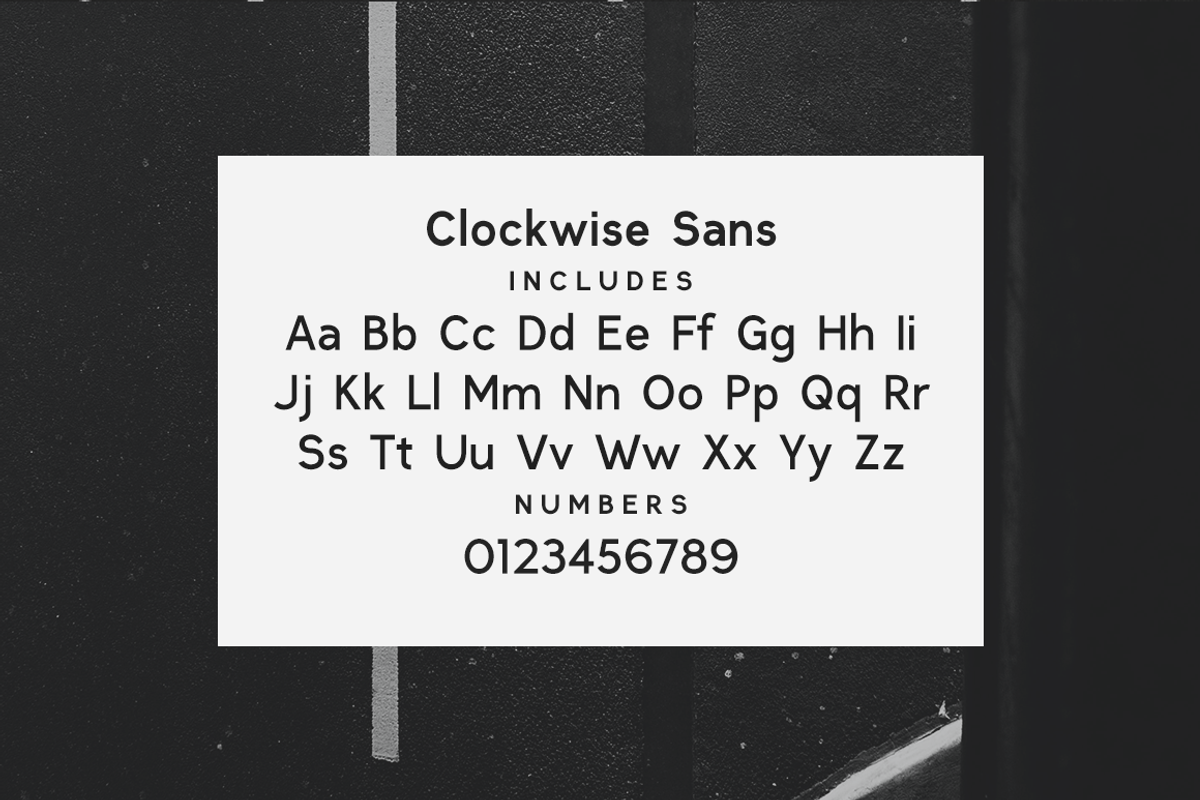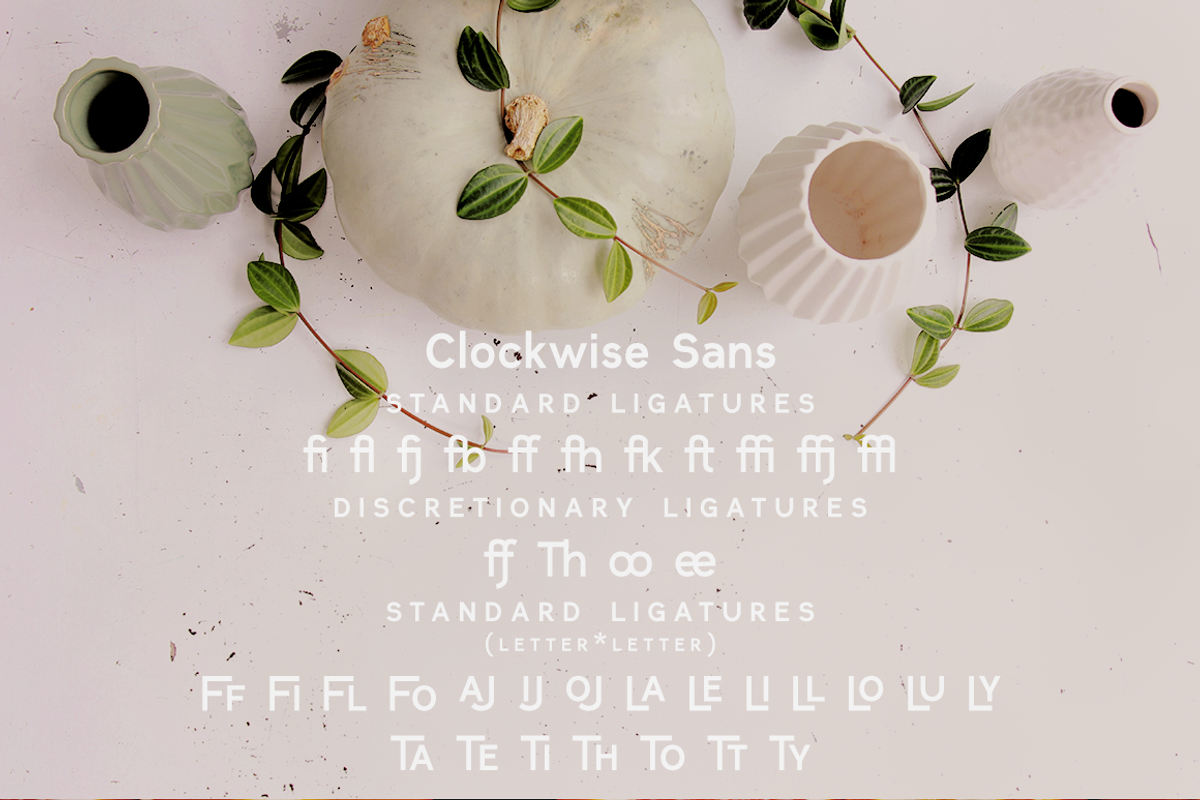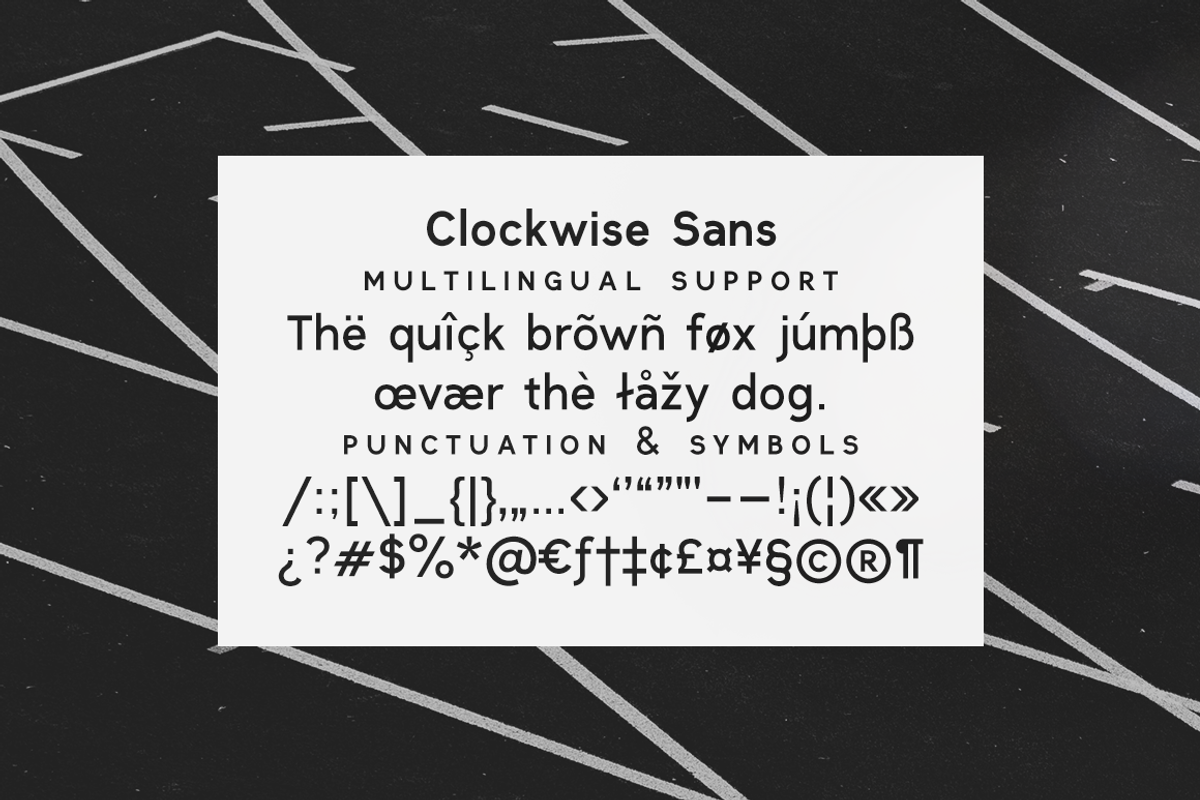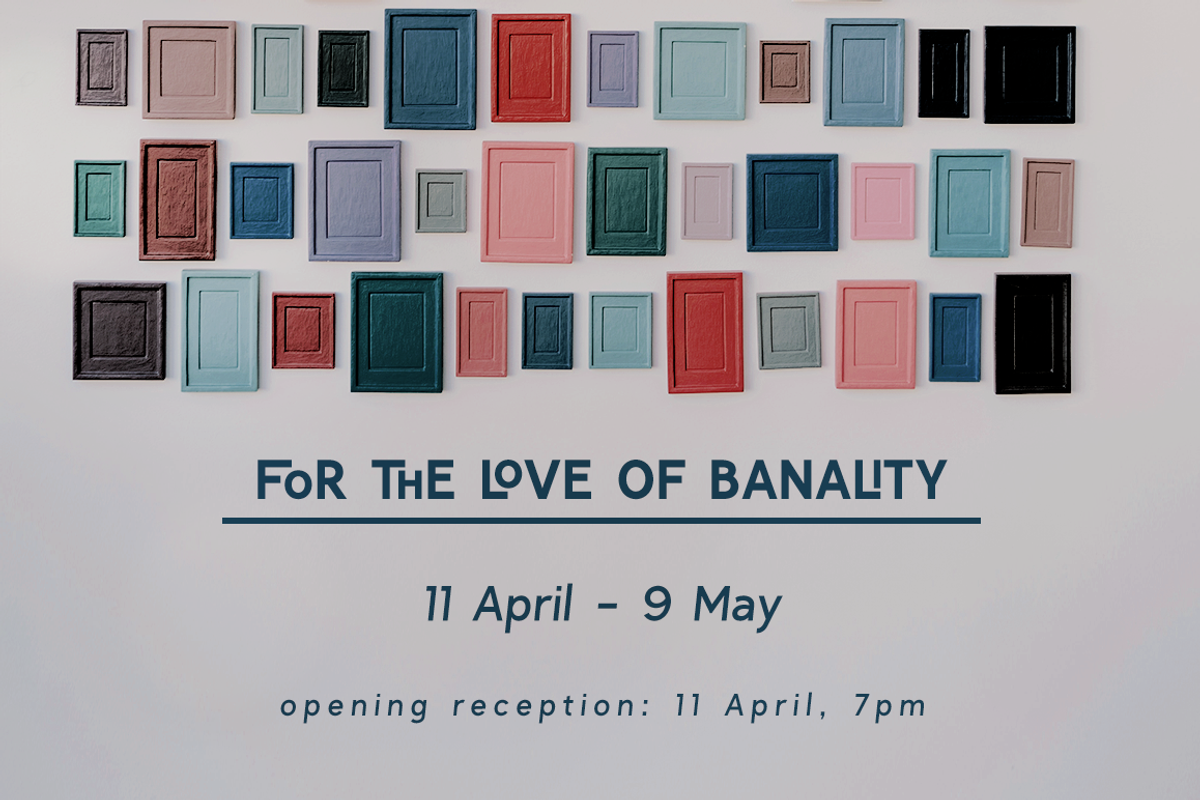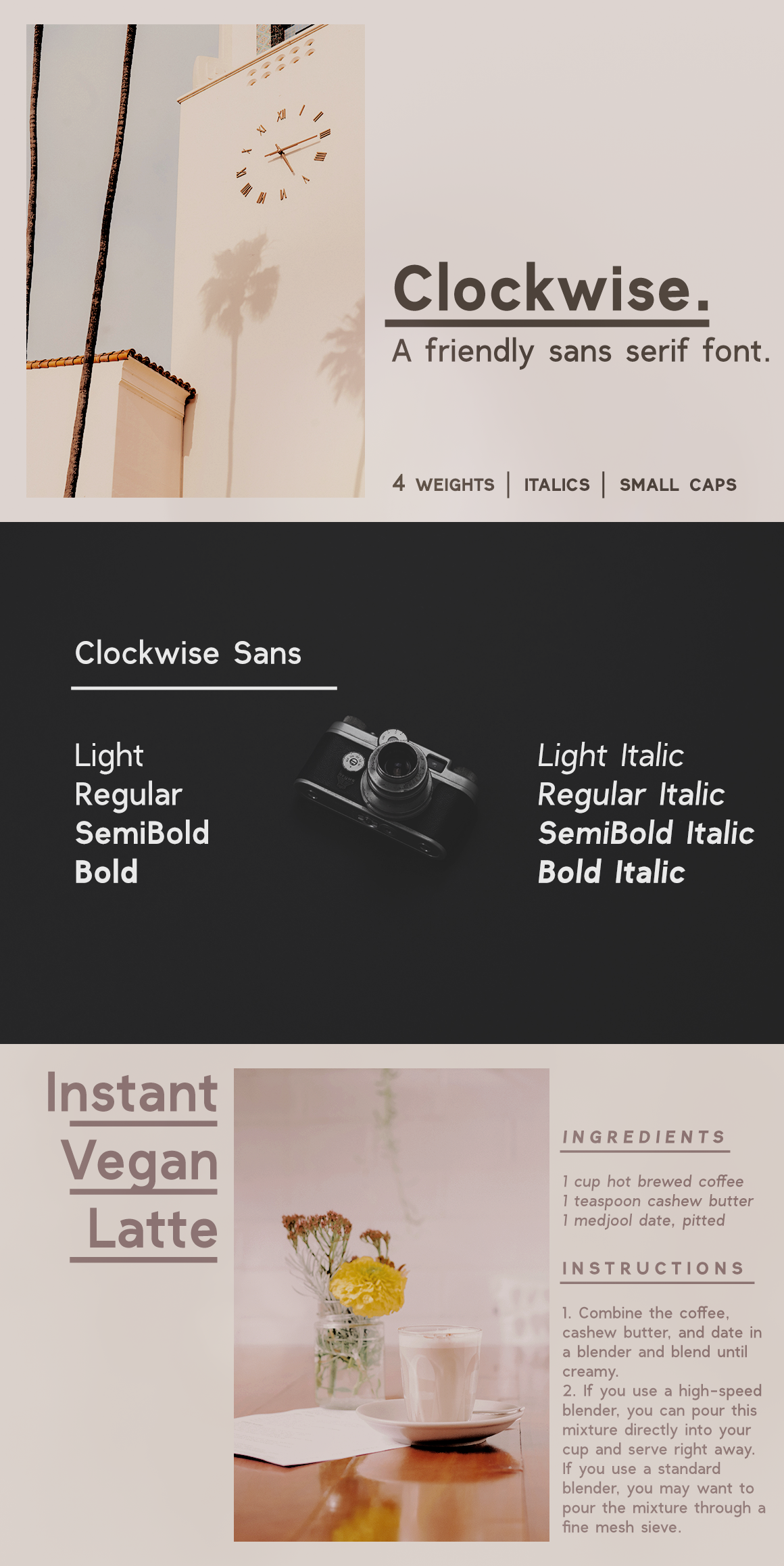
Clockwise sans serif font
Clockwise is a friendly sans serif font with 4 weights and italics. It includes over 315 glyphs, including:
- Small caps
- And a bonus set of dashes and borders to help accent and decorate your text.
Clockwise is perfect for both texts and titles, and pairs beautifully with other fonts already in your library, especially handwritten and serif fonts. Use it in everything from logotypes to social media posts, website and magazine layouts to poster designs.
Blown away by the simplicity, and how easy to produce a versatile layout with just one font family.
I think it is easy to read and great for business letters. I suggest adding a top & bottom to uppercase i to separate it from lowercase L. Add a semi condensed medium font.